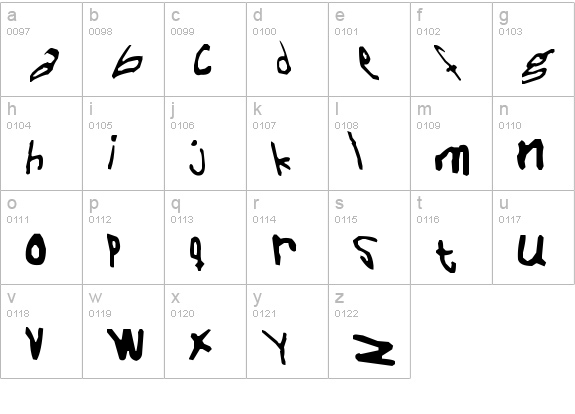
NaiveFont Font Details
NaiveFont is a charming and whimsical typeface that exudes a sense of innocence and simplicity. With its playful curves and rounded edges, this font is perfect for adding a touch of childlike wonder to your designs. Whether you are creating invitations, posters, or branding materials, NaiveFont will bring a sense of joy and creativity to your projects. The best part? NaiveFont is available for free download at FontsMarket.com, making it easily accessible for designers and creatives looking to add a fun and lighthearted touch to their work. Embrace the playful spirit of NaiveFont and watch your designs come to life with its unique and endearing charm.